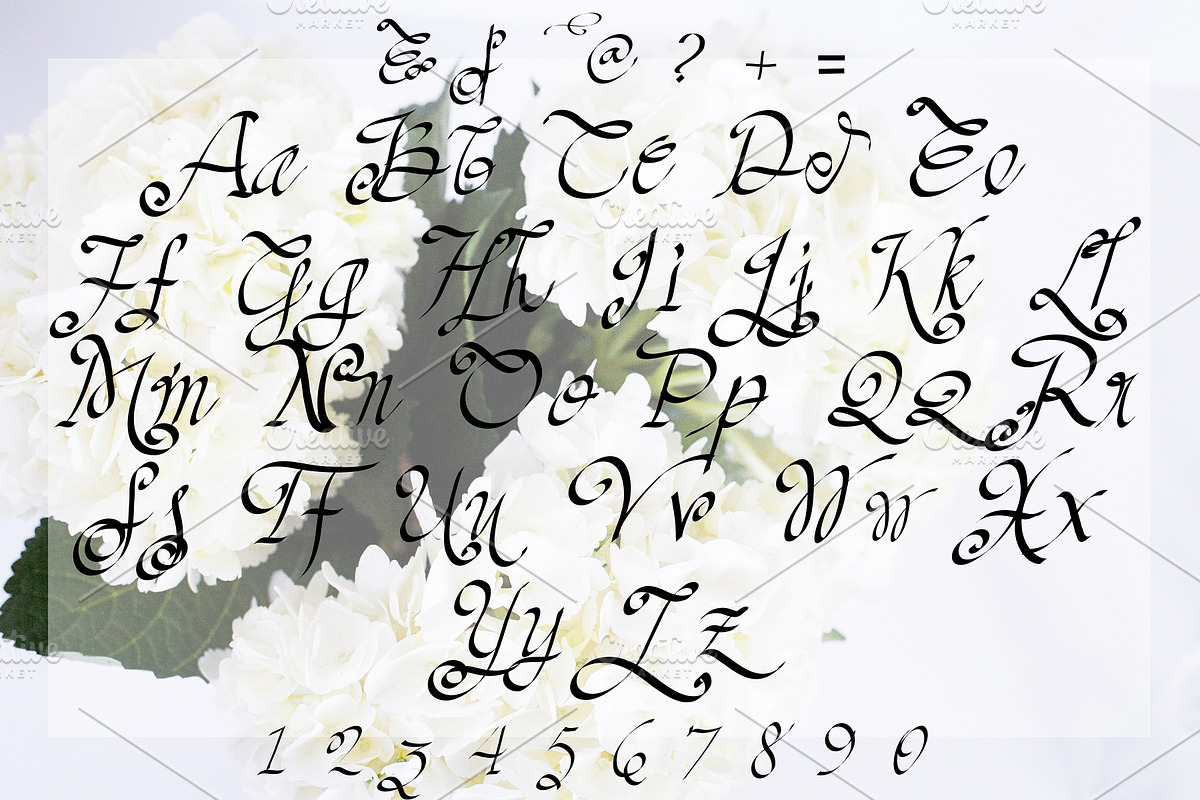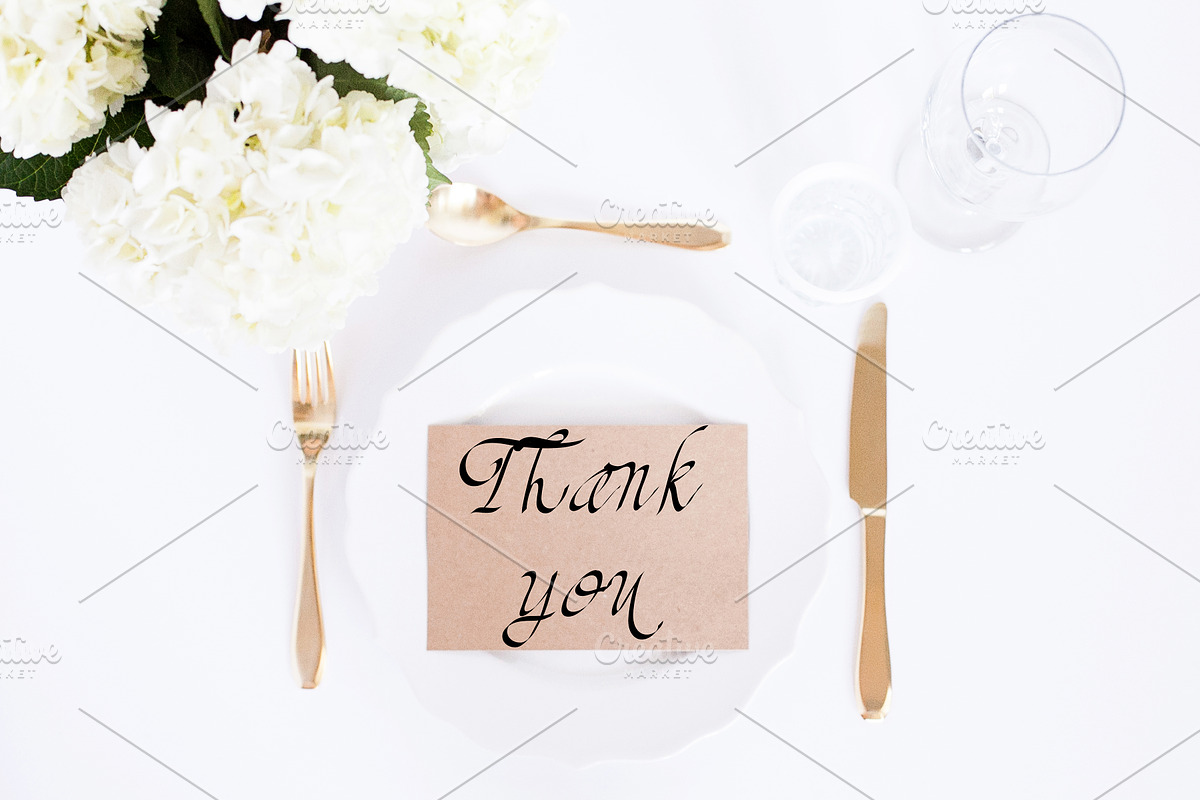
NATALIA Hand Lettered Font
NATALIA Hand Lettered Font by Rhonna Designs is a font selected for branding, posters, packaging, typography.
Why NATALIA Hand Lettered Font is worth a look
NATALIA Hand Lettered Font by Rhonna Designs fits naturally into Branding, posters, packaging, typography.